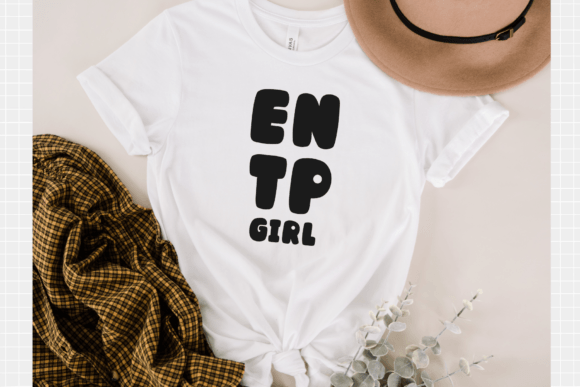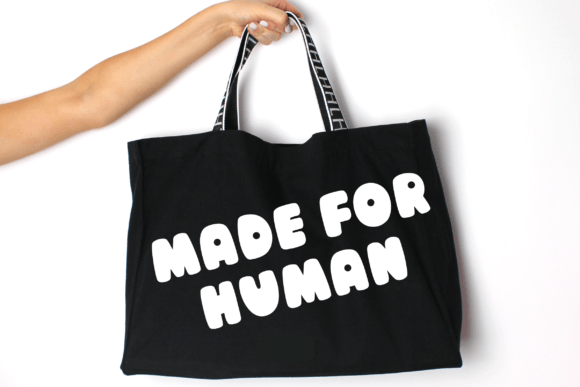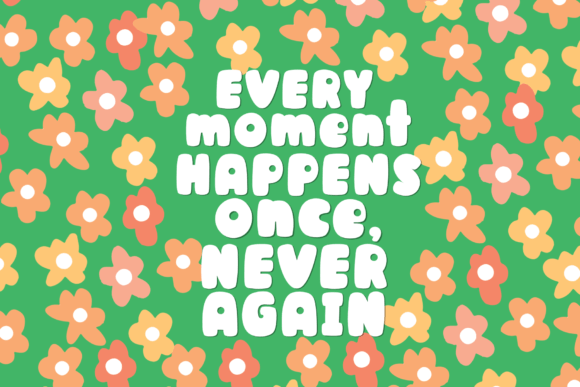
Introduction to Like That Font
Remember the moment when you’re brainstorming a creative project, and the perfect font suddenly pops into your mind? It’s like a ray of sunshine on a cloudy day, and you can’t help but feel a surge of excitement. For designers and crafty individuals, finding the right font can make all the difference in bringing a project to life. That’s where Like That Font comes in – a chunky, cute hand-drawn display font that’s sure to captivate your audience.
Whether you’re working on a blog post, logo, or digital planner, Like That Font is the perfect design resource to add a touch of whimsy and personality to your work. With its transparent background and high-quality design, you can easily customize it to fit your project’s needs. And the best part? It’s available for a free download, making it an invaluable asset for designers and creatives on a budget.
So, what makes Like That Font so valuable for designers? Its versatility and charm make it an ideal choice for a wide range of projects, from branding and invitations to photo albums and decorations. With its unique, hand-drawn style, you can trust that your project will stand out from the crowd and leave a lasting impression.
Key Features of Like That Font
- High-quality, free font download for creative projects, ideal for designers and artists.
- Transparent background design, allowing for effortless layering and customization in graphic design and digital art projects.
- Perfect for use in various design applications, including logos, typography, and creative compositions, due to its high-resolution design.
- Includes a range of characters and glyphs, ensuring comprehensive coverage for diverse language support and creative expression.
Honest Review: Like That Font
As a designer, I’m always on the lookout for high-quality design resources that can elevate my creative projects. Recently, I stumbled upon Like That Font, and I’m excited to share my honest review with you.
- High-quality typography that’s perfect for various design projects
- Transparent background, allowing for seamless integration with different design elements
- Limited font styles and weights, which might not be suitable for complex design projects
- No support for bold or italic text, which can be a drawback for some designers
Overall, I think Like That Font is a solid design resource that’s worth considering for simple creative projects. While it may not be the best fit for complex designs, its high-quality typography and free download option make it a great starting point for designers on a budget. With a little creativity, you can make the most out of this design resource and achieve great results.
Like That Font is a high-quality design resource that can elevate your creative project. With a transparent background, this font is versatile and easy to use.
Tips for Getting the Most Out of Like That Font
For the best results, use Like That Font in conjunction with a high-quality background image or design element. You can also experiment with different font sizes and colors to create a unique look.
Like That Font is perfect for creative projects such as logos, social media graphics, and marketing materials. You can also use it to add a touch of elegance to your presentations or documents.
Yes, Like That Font features a transparent background, making it ideal for designs that require a clean, high-quality look. This feature is particularly useful when creating designs with complex layouts or when working with images.